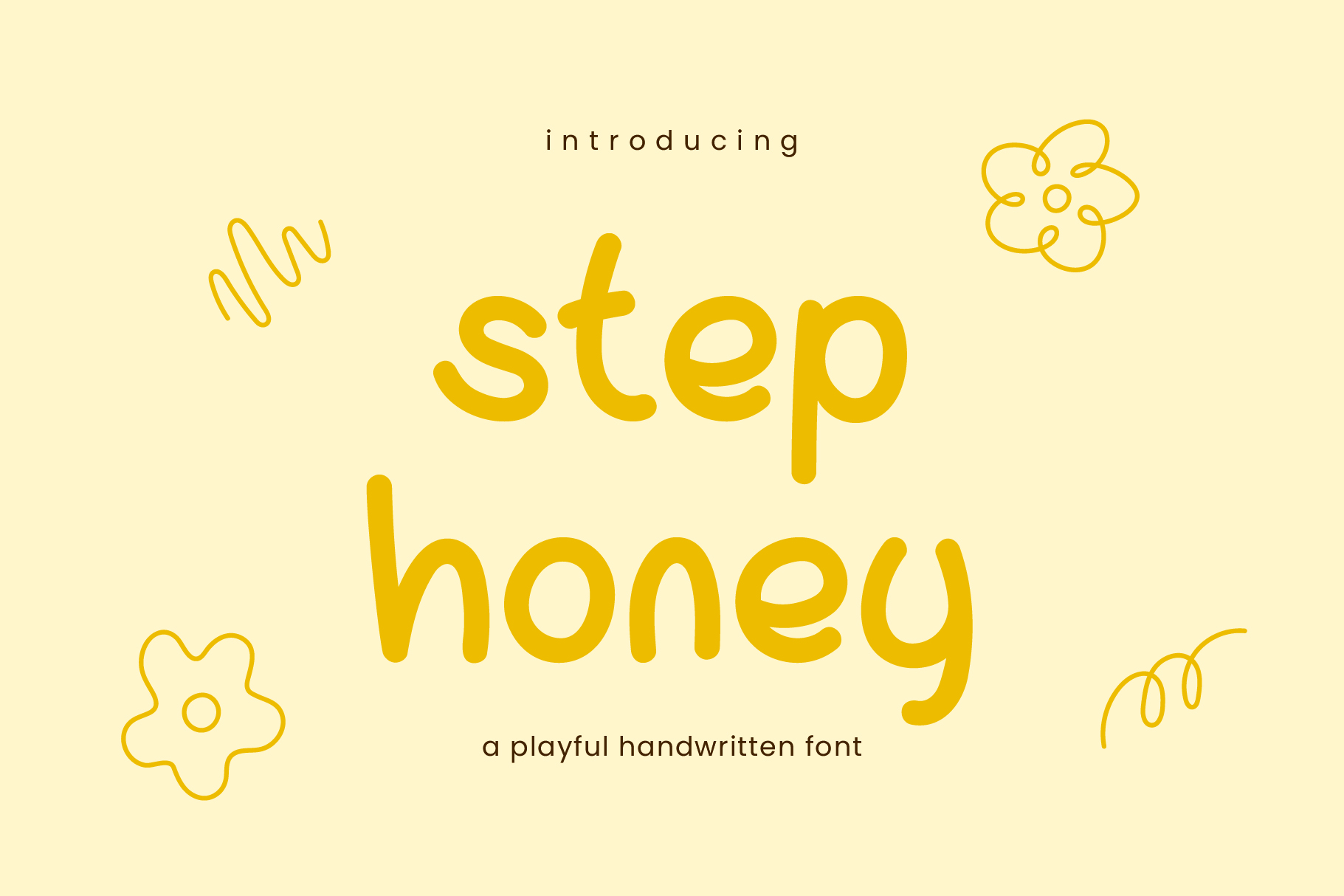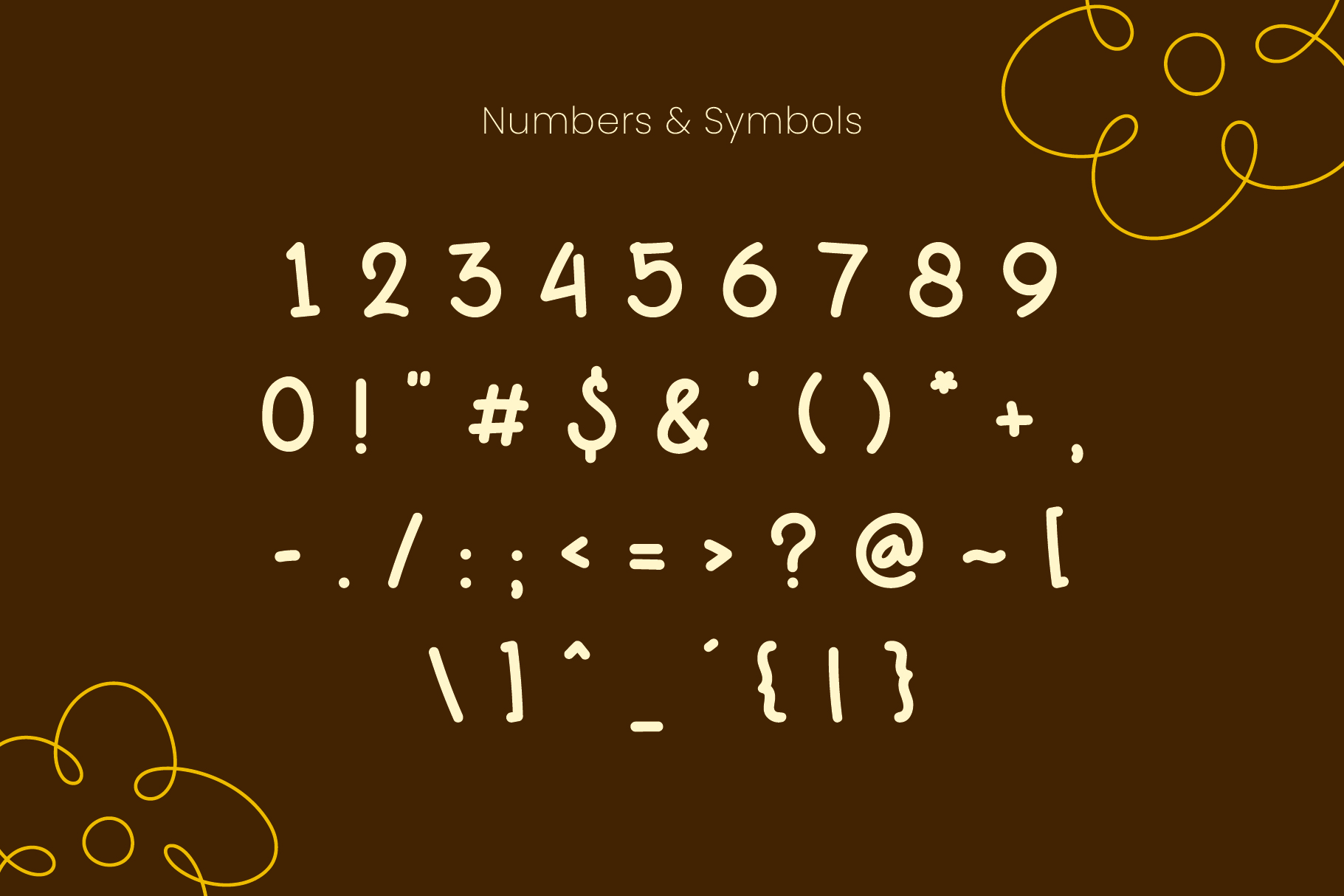
Stephoney
Meet Stephoney, a delightful handmade font that brings joy and playfulness to your designs. With its bubbly, rounded shapes, it’s perfect for adding a touch of whimsy and fun.
Whether you’re working on children’s books, toy packaging, baby clothing, posters, or quotes, Stephoney adds a cheerful flair to your creations. Its friendly appearance appeals to both kids and adults alike, ensuring your designs stand out with warmth and charm.
Stephoney – Handwritting Font